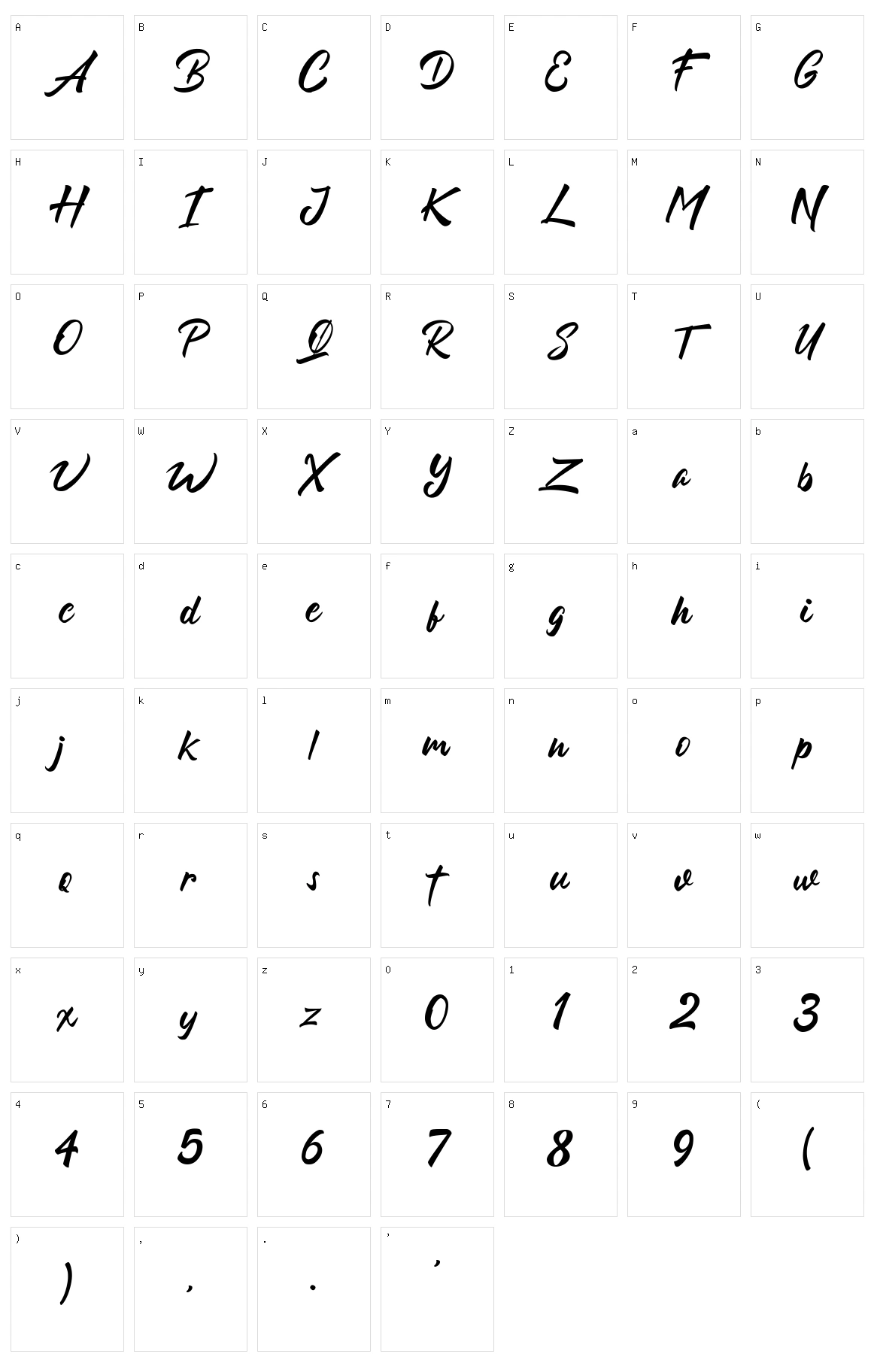
The free font Backabon is carefully designed by hustletter, showcasing a thoughtful balance of creativity and usability and falls under the Script font style. When you download the ZIP file, it contains only 16.34 KB of font files, making it lightweight and quick to download. Please review the license details below to understand permitted usage and distribution rights. If license information is not available, we recommend using this font for personal projects only or contacting the author directly for commercial usage permissions.